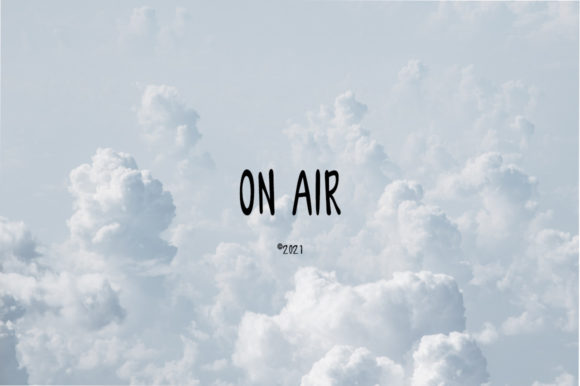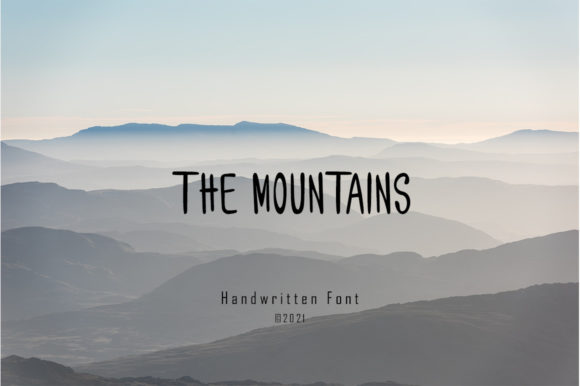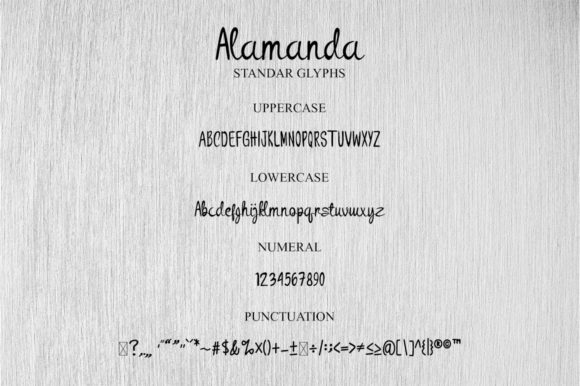
The Alamanda Font: Elevate Your Designs with Elegance and Sophistication
I’ll never forget the time I was working on a branding project for a luxury skincare client. I had spent hours perfecting the logo design, but something felt off. The font I had chosen just wasn’t conveying the level of sophistication and elegance the brand required. That’s when I stumbled upon the Alamanda font, and it completely transformed the design. In this article, I’ll share my experience with Alamanda, its features, and how to make the most of this stunning script font.
A Personal Review of Alamanda Font
What I Love About Alamanda ✨
- ✅ Sophisticated and elegant design: Alamanda exudes refinement and poise, making it perfect for high-end branding projects.
- ✅ Stylish alternates and ligatures: The font offers a range of stylish alternates and ligatures that add a touch of uniqueness to any design.
- ✅ Highly versatile: Alamanda can be used for a variety of projects, from logos and branding to packaging and advertising.
- ⚠️ Some characters may require manual kerning: While Alamanda is generally well-spaced, some character combinations may require manual kerning for optimal results.
- ⚠️ Limited use of uppercase letters: While the font does include uppercase letters, they may not be as stylized as the lowercase letters.
The Story Behind Alamanda Font
Alamanda was designed by a team of typographers who sought to create a font that embodied the perfect balance of elegance and sophistication. Inspired by classic calligraphy and modern digital design, Alamanda was crafted to be a versatile and stylish addition to any design project.
| Font Name | Alamanda Font |
| Author | Masur YK |
Q: What is the Alamanda font best suited for?
A: Alamanda is perfect for high-end branding projects, luxury packaging, and elegant advertising campaigns.
Q: Does Alamanda support OpenType features?
A: Yes, Alamanda supports OpenType features, including stylistic alternates and ligatures.